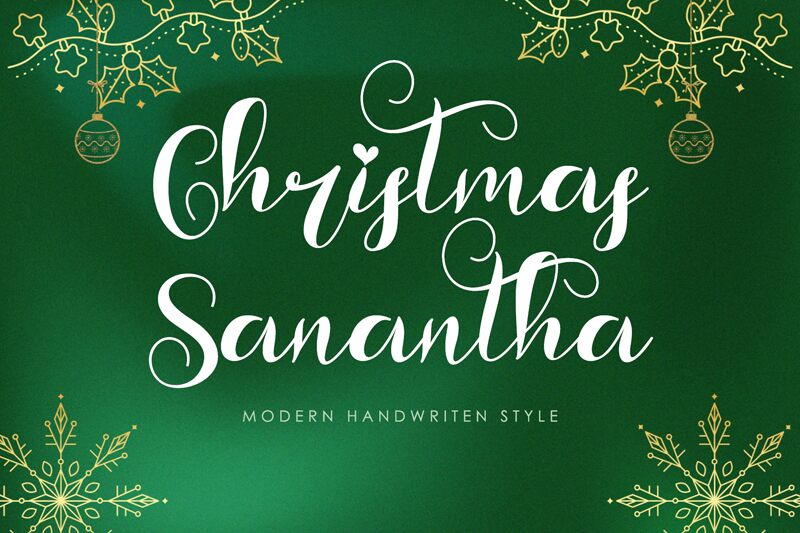
Christmas Sanantha font designed by Yoga Letter is a free font with a decorative, flowing, and sophisticated style. The letters and glyphs appear handwritten with cursive letterforms while the font incorporates smooth transitions and gentle elegant curves. This feature-packed typeface immediately brings Christmas, the New Year, and the winter holidays to mind. Its expressive letters can also evoke other festive events and celebrations.
The font is absolutely elegant and graceful in designs for Christmas cards and invitations. Its festive presence suits labels and tags for Christmas gifts too. Other imaginative scenarios include print or digital ads, website headers, and social media content. Ideally, any other holiday event-related projects are a good match for this typeface.